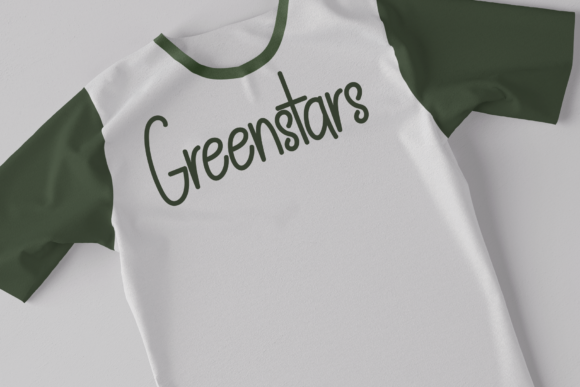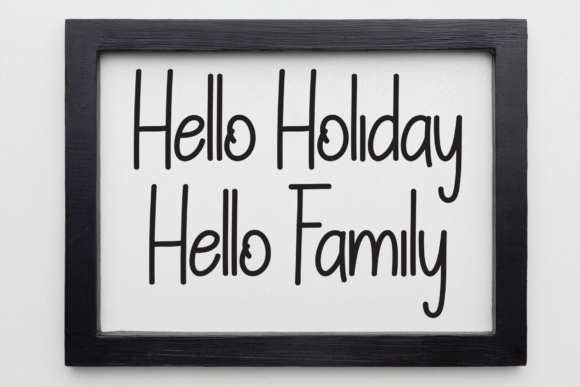
Children School Font
db-ku.com - Script & Handwritten -- Children School is a slim and cursive handwritten font. This soft font will look great on any design idea. It will add a fun and romantic touch to any of your projects!